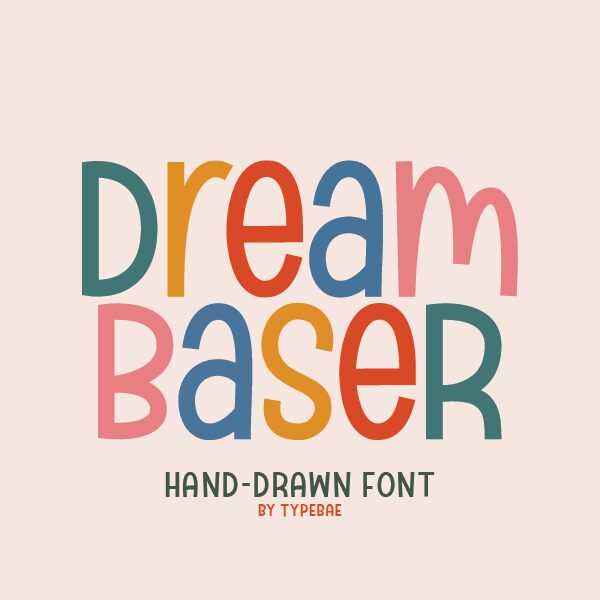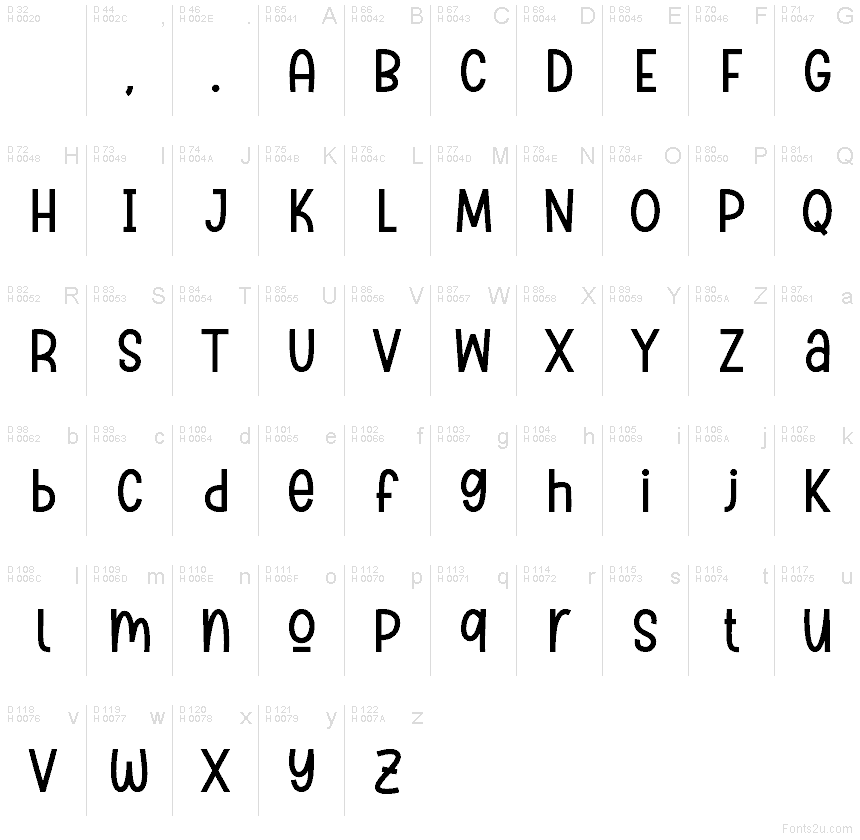
Dream Baser Regular
Dream Baser font by Typebae Foundry is a free cartoon display typeface with a bubbly, hand-drawn charm. The tall, rounded letters and gentle curves feel like they’ve been doodled with a thick marker, giving headlines a soft, friendly bounce. There’s enough structure to keep things readable, but the playful wiggles and narrow spacing keep the energy high and lighthearted.
Using Dream Baser, your titles instantly feel approachable—great for kids’ books, game interfaces, toy packaging, classroom printables, posters, and cheery social graphics. This free font shines at larger sizes where its quirky curves can really show, while body text can sit comfortably in a clean sans serif partner underneath.